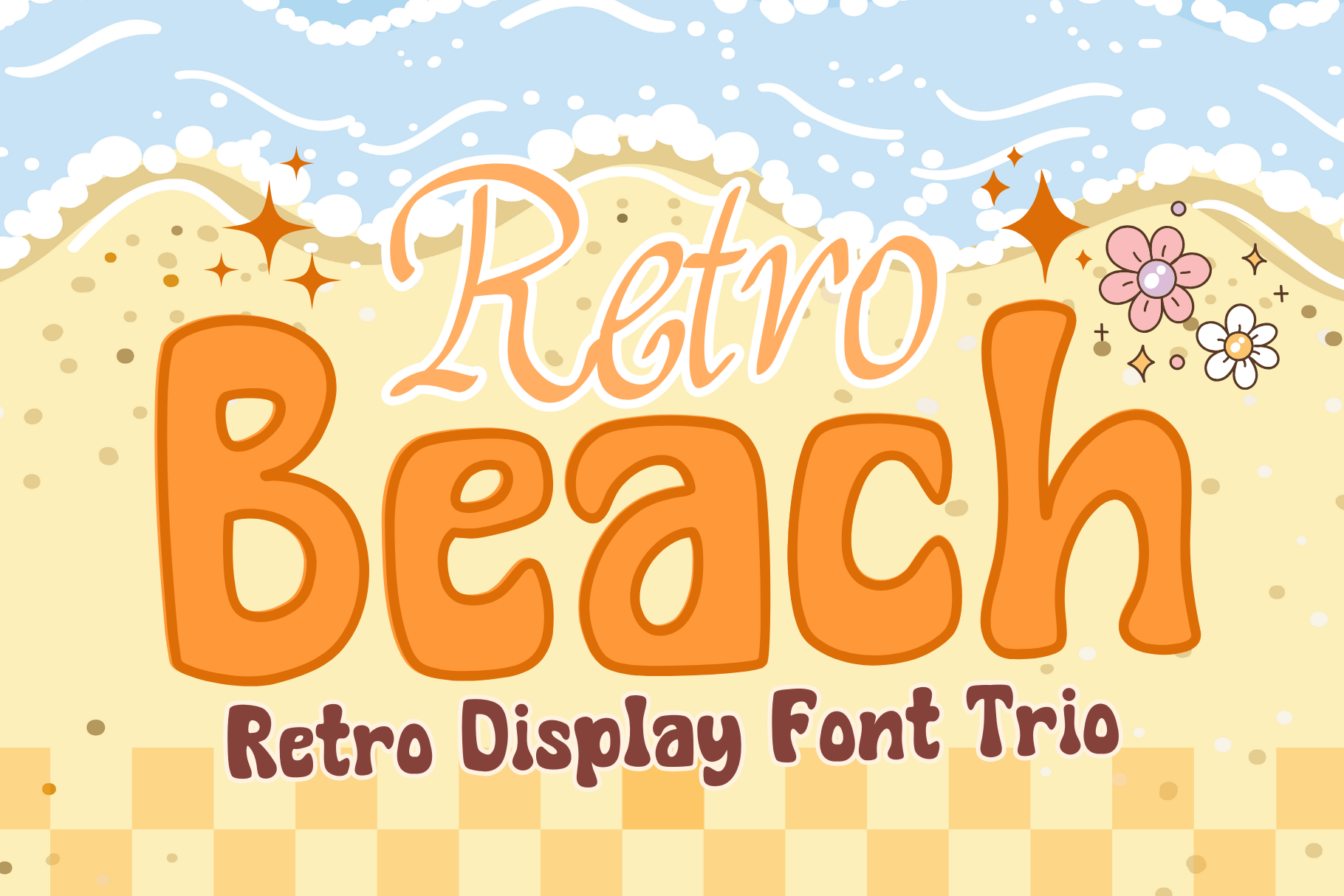
Retro Beach is a retro groovy font
Retro Beach is a stylish retro groovy font. Ideal for all your hippie-inspired designs, It embodies playfulness and authenticity and is the perfect choice for all your favorite projects, or even for blog posts, logos, branding, ads, invitations, greeting cards, planners, photo albums, decorations, and much more. Add it to any of your designs, and enjoy the results!